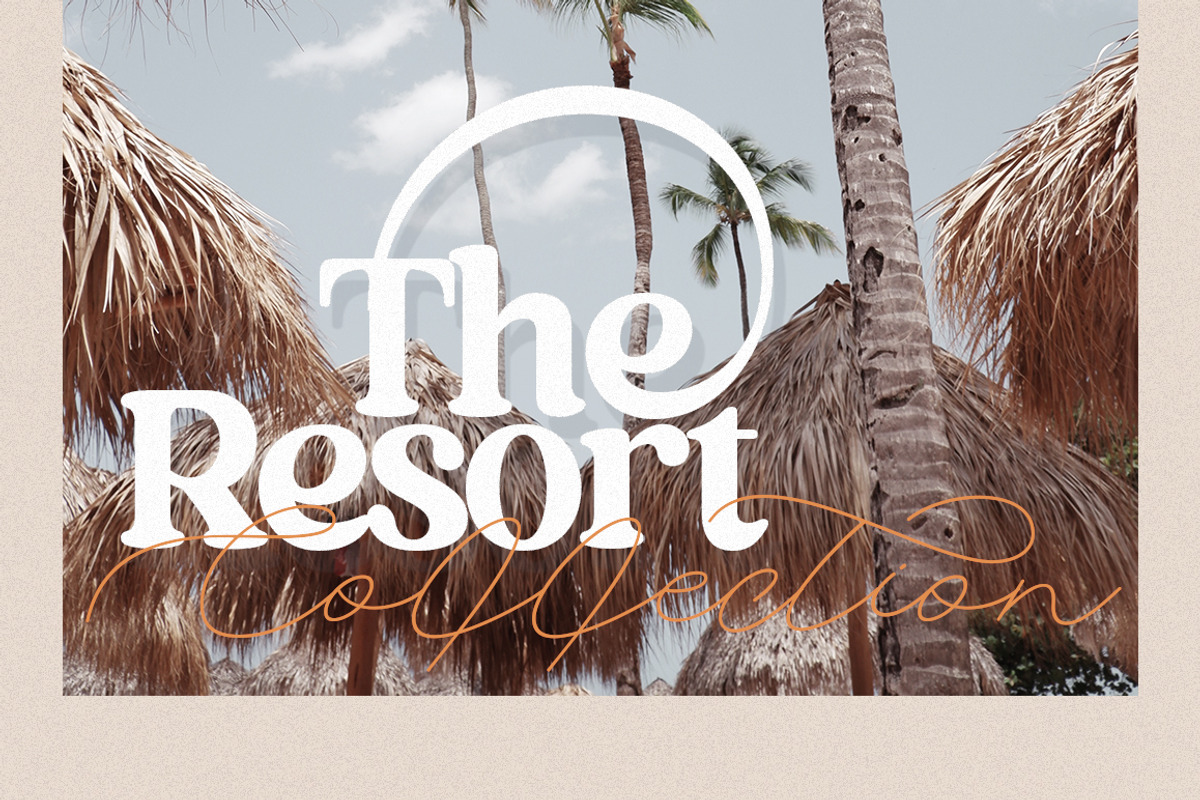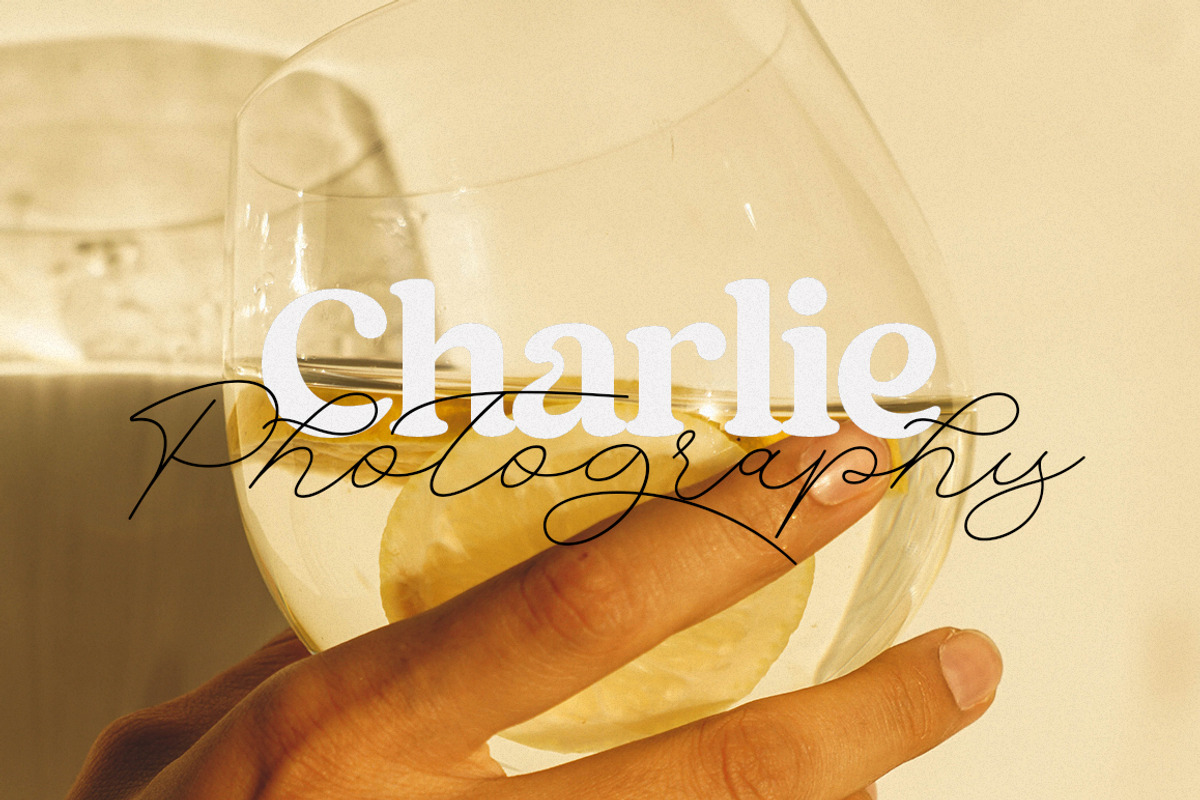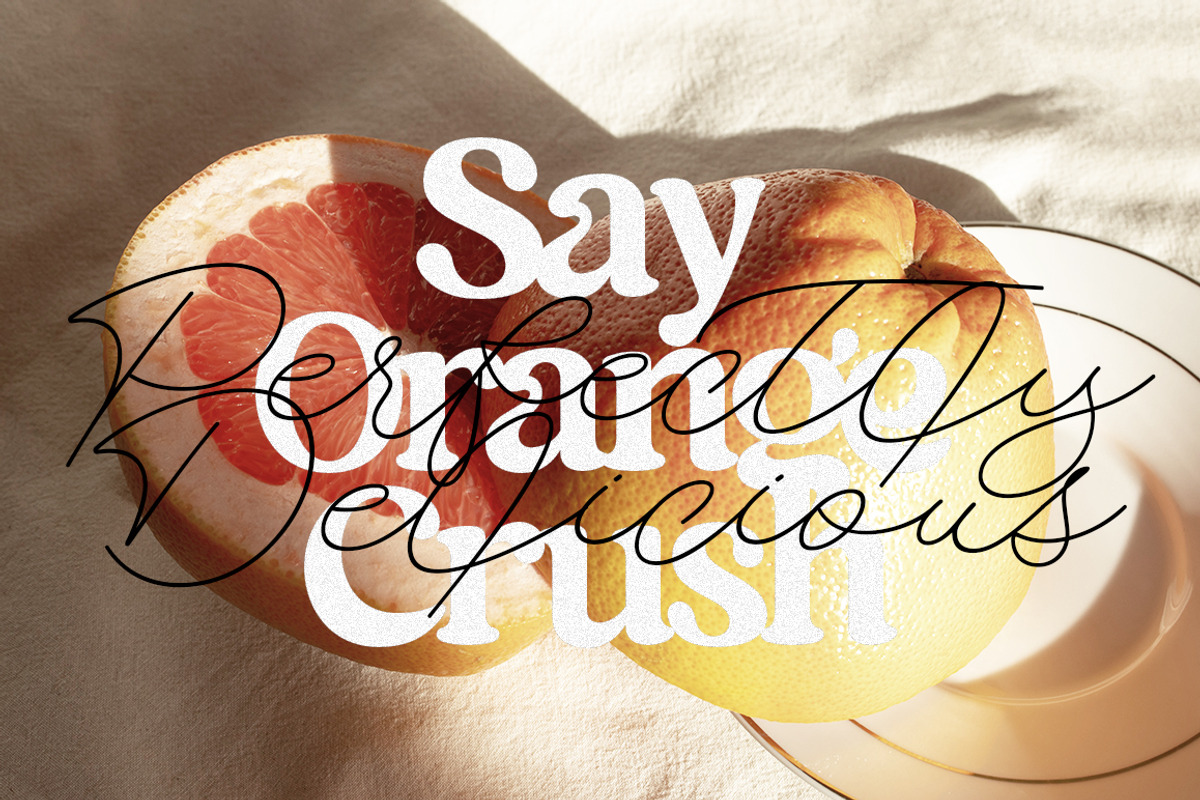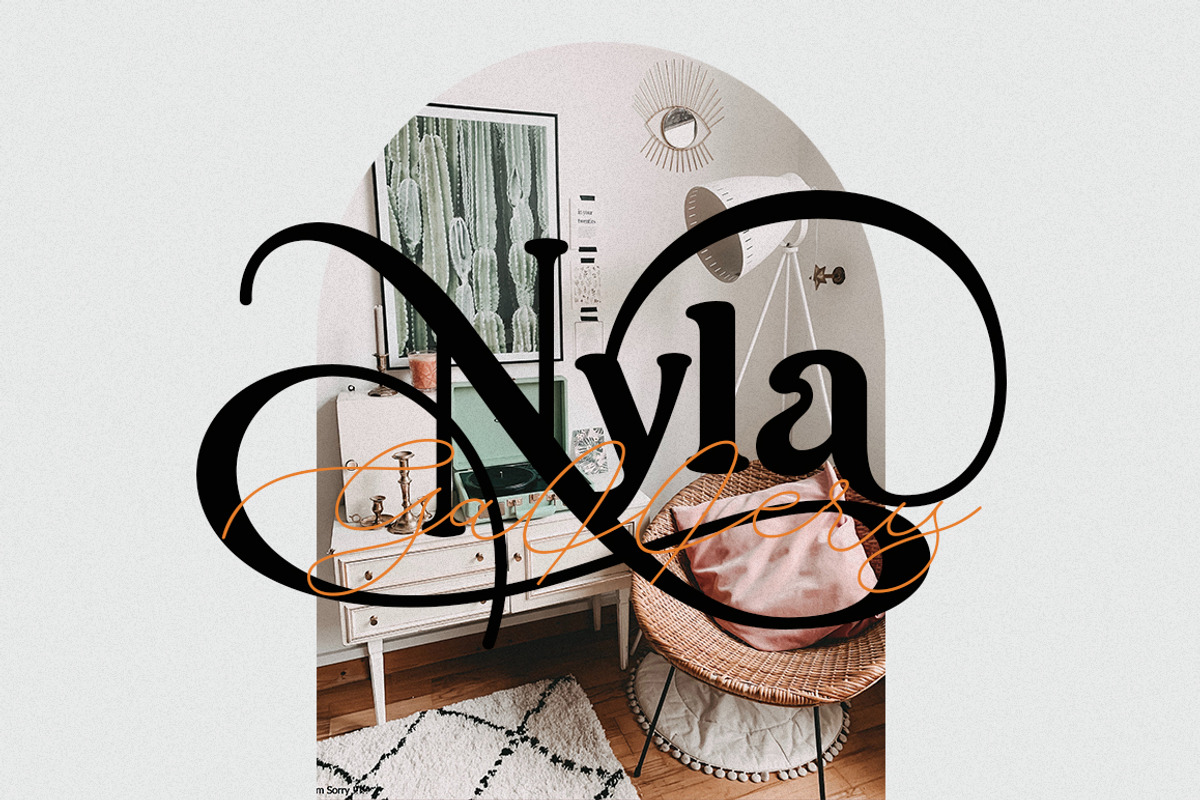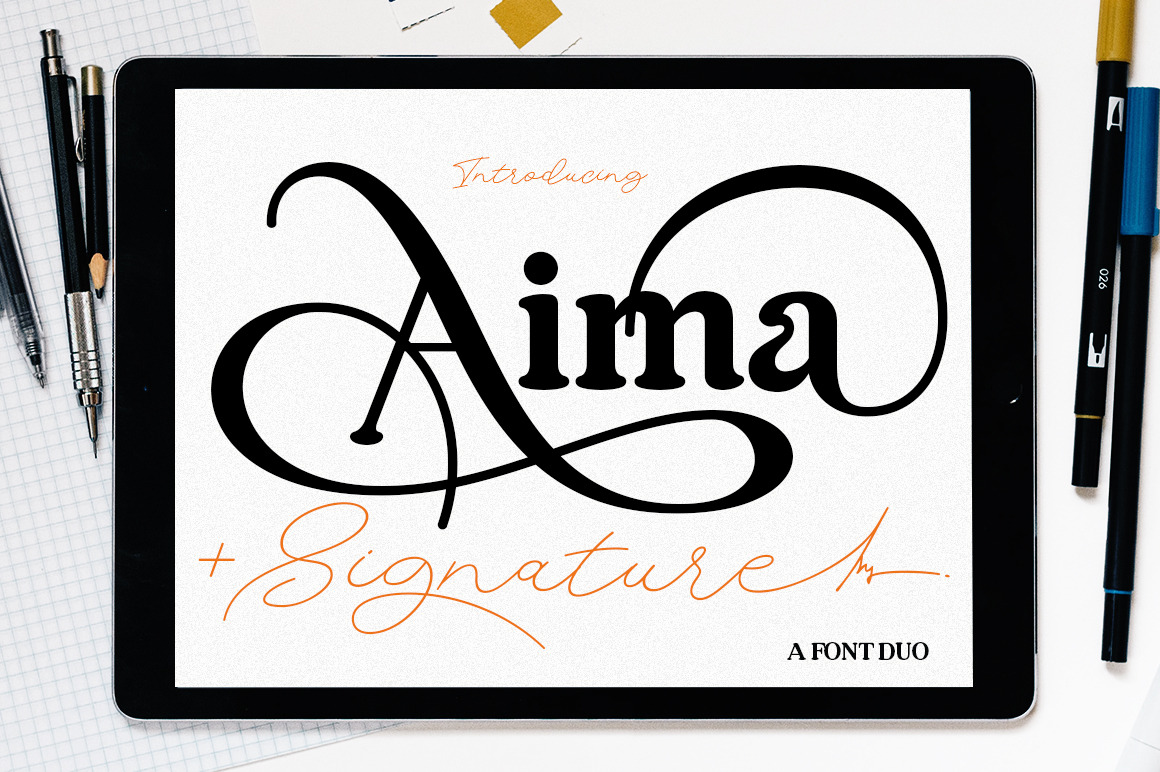
Aima Font Duo|Modern
Aima Font Duo is a gorgeous modern signature. It features a dynamic and beautiful swash and can be used for many purposes, such as titles, signatures, logos, wedding invitations, letterheads, nameplates, labels, newsletters, posters, badges, etc.
Aima Font Duo features OpenType, including initial and terminal letters, ligatures, and International support for most Western languages included.
- Stylistic Alternates & Ligatures